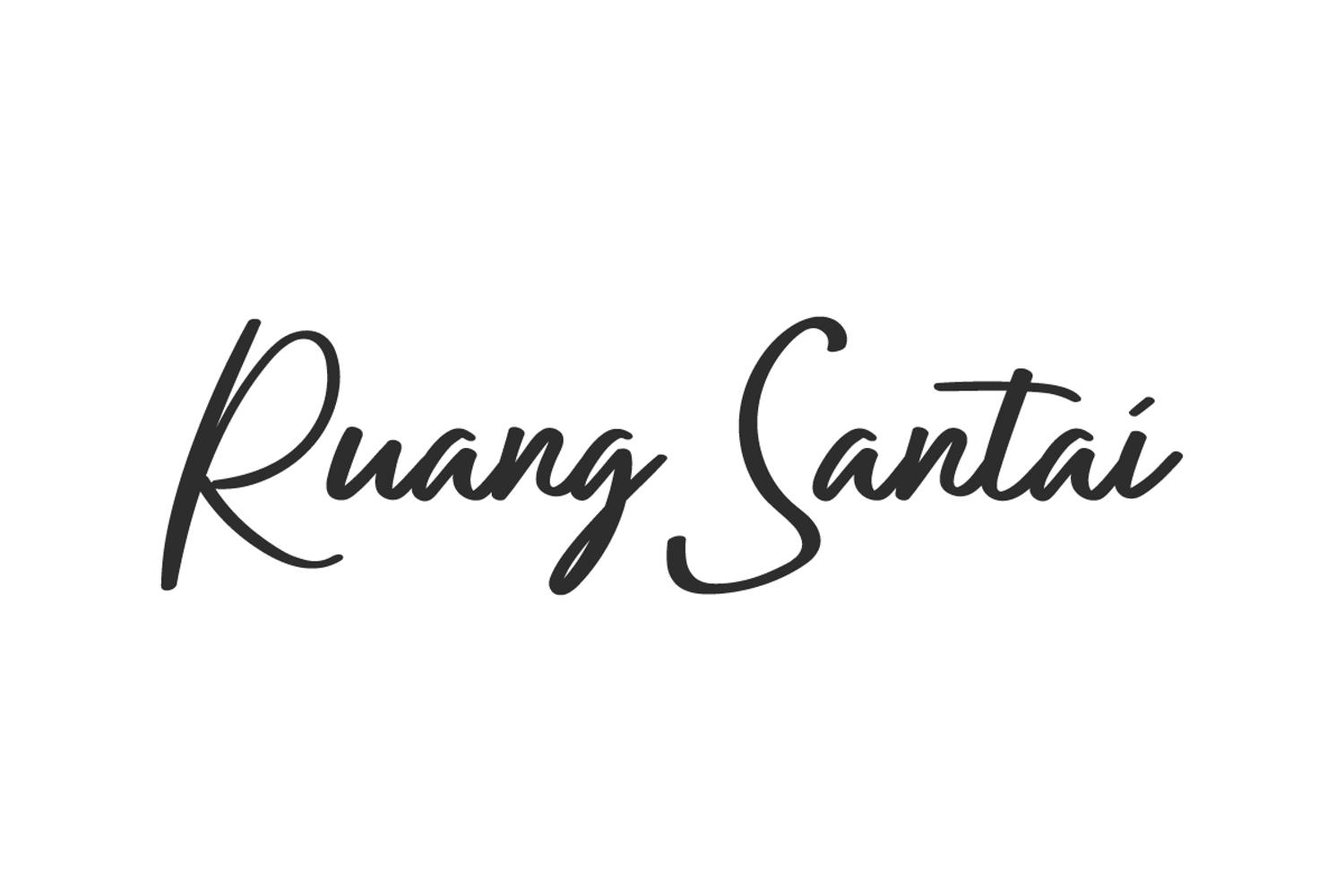
Ruang Santai
Ruang Santai Font is a casual handwriting font with an awesome signature style and is suitable for banners, blogs, branding logo, brochure, business card, covers, flyer, greeting cards, headers, labels, mockup, poster, product packaging, signatures, stationery, template, titles, website, and other needs. It gives a pers0nal touch based on delicate and simple brush.
Ruang Santai Font comes with a full set of Uppercase and Lowercase Basic Characters, Number, Punctuation, and Symbol. This font carries the eternal charm of human touch and artistic expression. Perfect for accessories and watches, authors, beauty clinic, florist, graphic designer, home furniture, interior design, photography, printing, publishing, real estate, skincare, spa salon, and more.